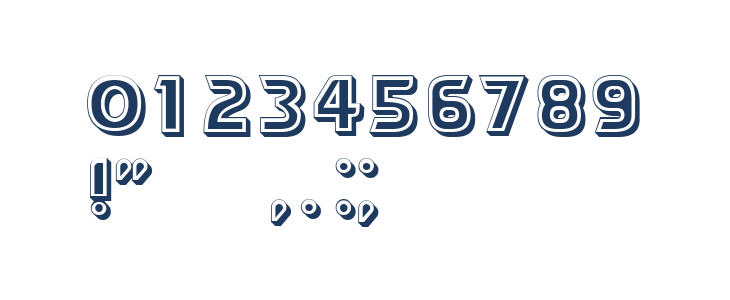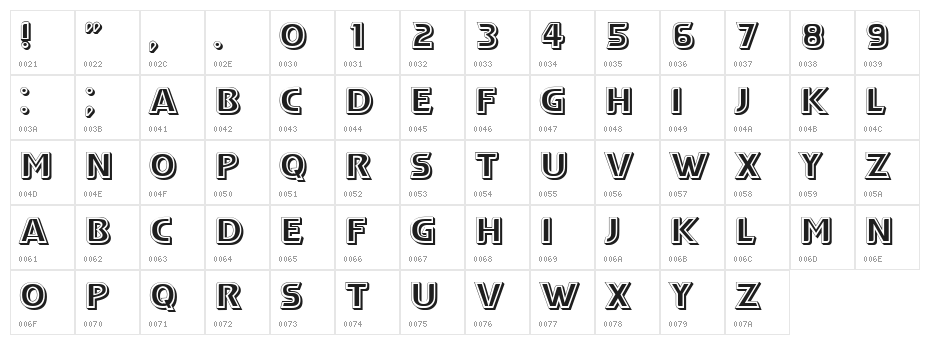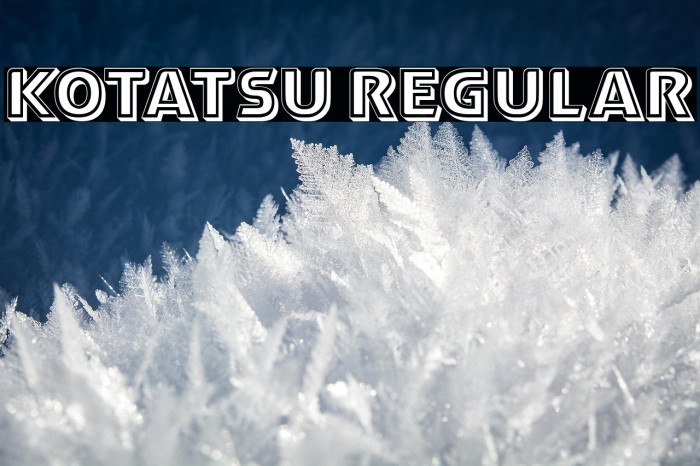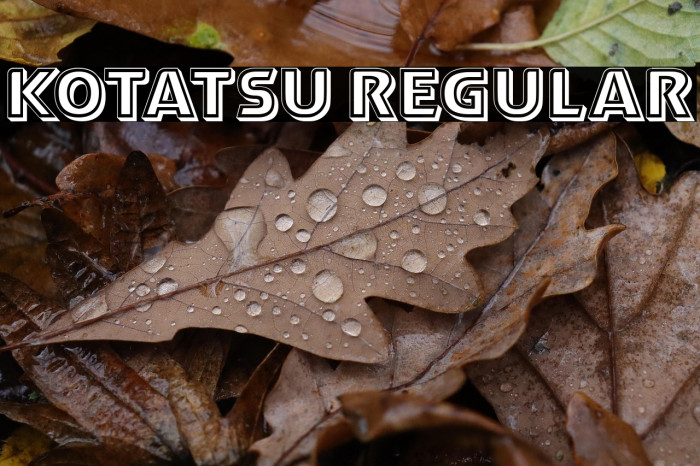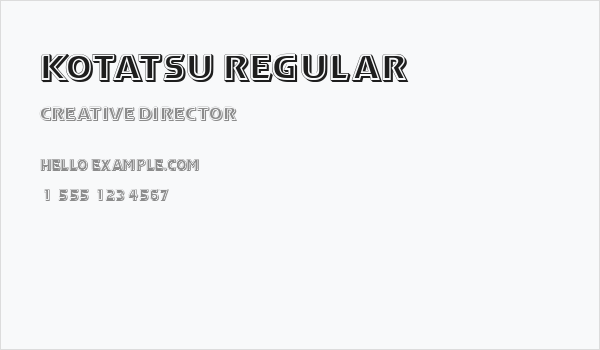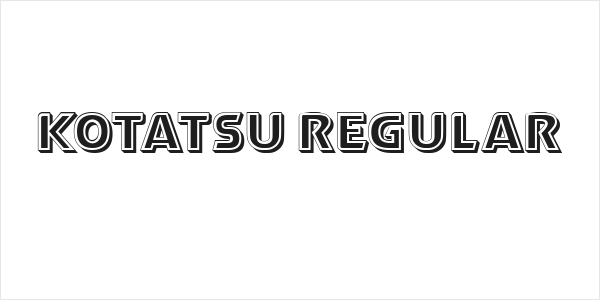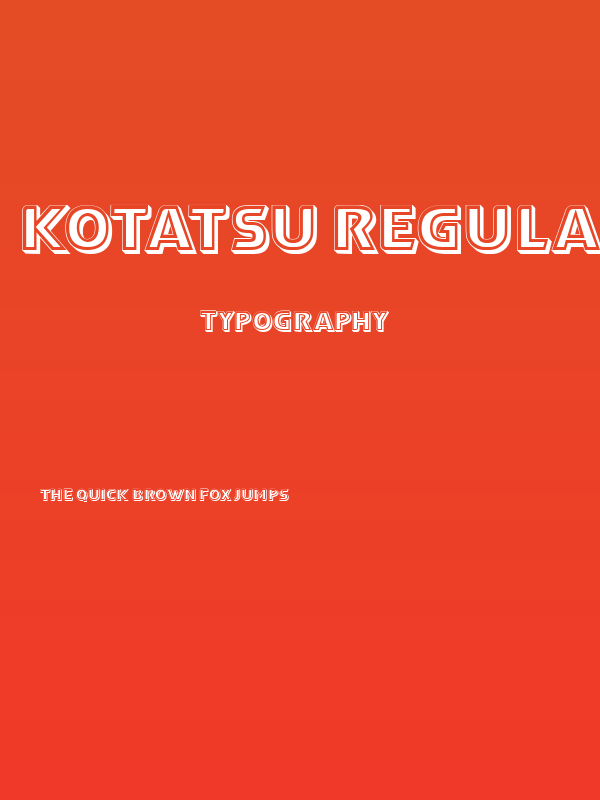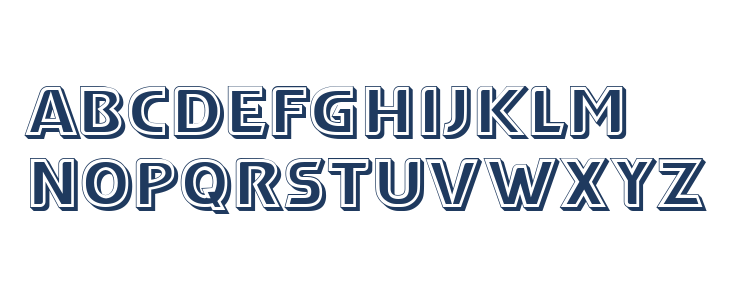
Kotatsu Regular Font
Kotatsu Regular Description
This font features a bold, geometric design with a distinct three-dimensional effect created by its shadowed outline. The characters are uppercase and numerals, each with a strong presence and clear legibility. The style is modern and eye-catching, making it suitable for impactful headlines or titles. The font's structure is consistent, with uniform stroke widths and a balanced appearance. Its shadow effect adds depth, making it stand out in any design context.